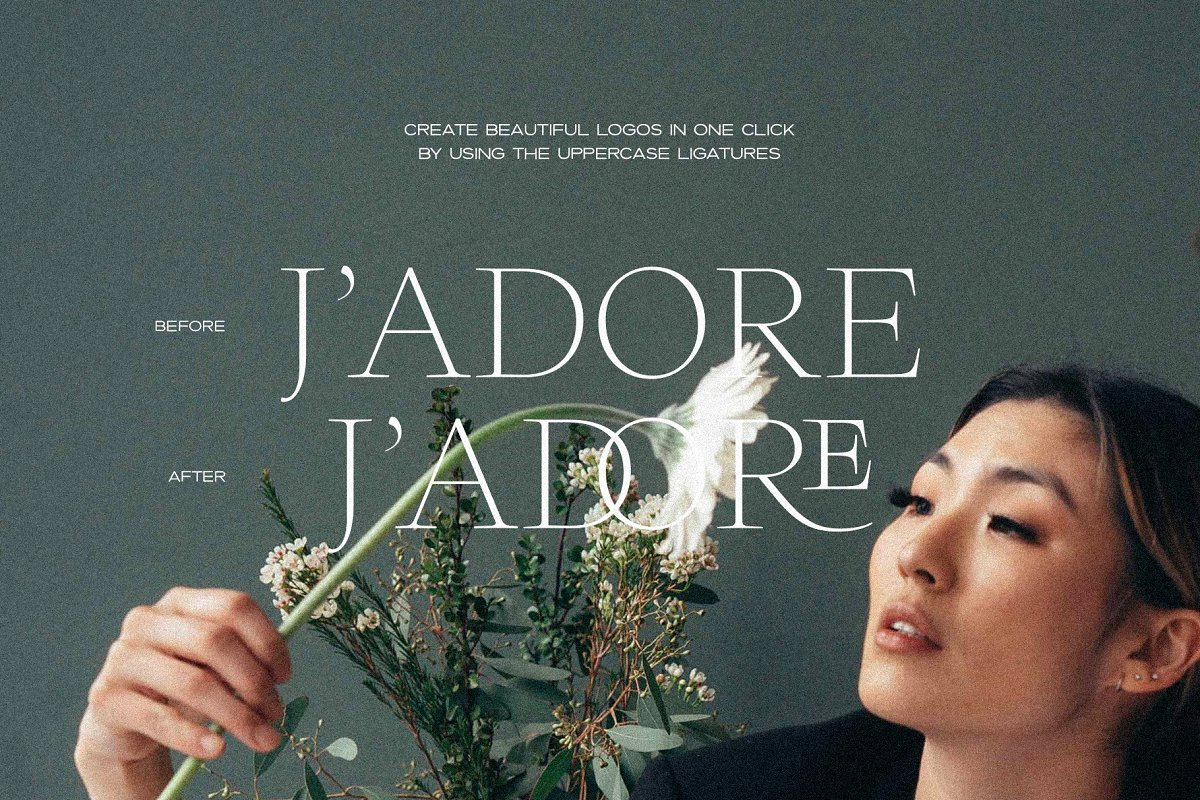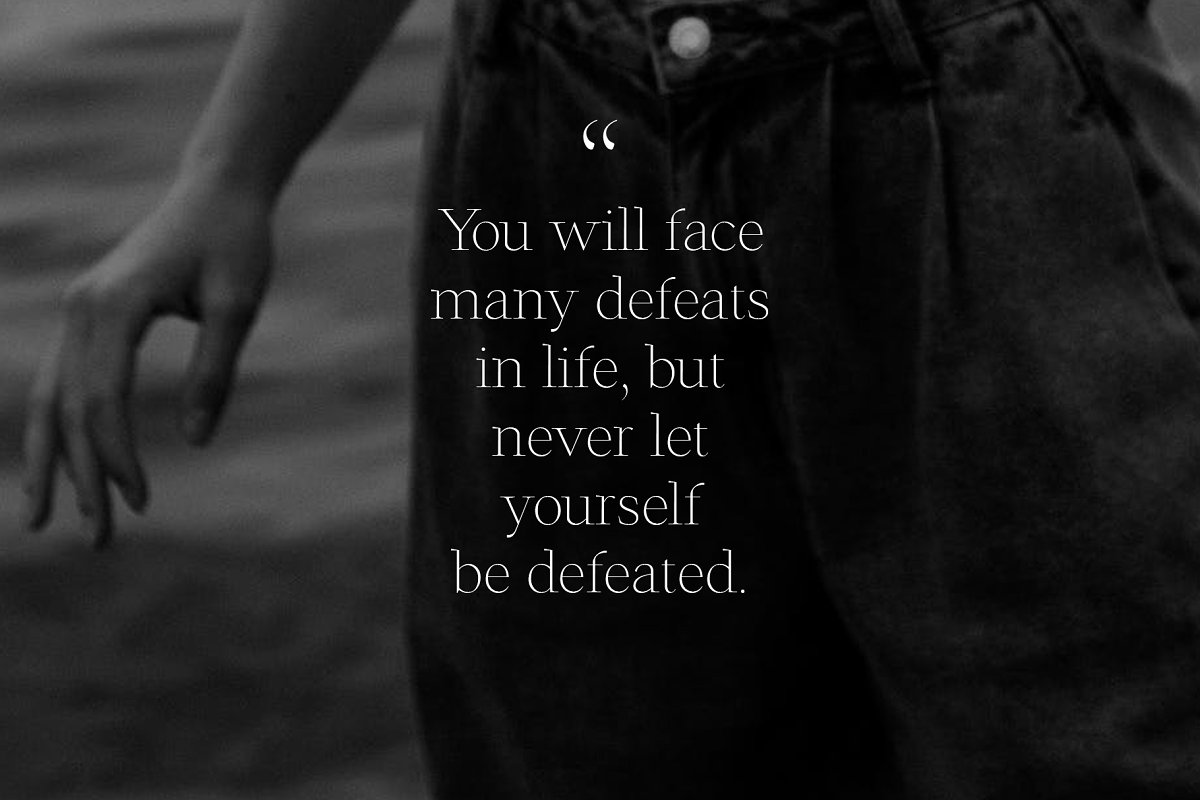
About the Mezcal Luxury Ligature Serif Font
Mezcal is a new, stunning serif that gives you the look of a totally customized logo with special ligatures, with the flexibility to also create stunning and delicate body text, This modern serif can turn a basic wordmark into a custom-looking logo in one click, Simply turn on your ligatures (or access them via the special characters panel in your program)!Test it out by typing your word in the box above!Includes:Uppercase & lowercase, numbers, punctuation21 common ligatures for extra customizationWestern & Central European language supportUse for: Logos, Print Materials, Products, Desktop Programs, Canva (Desktop license), Websites (web license)